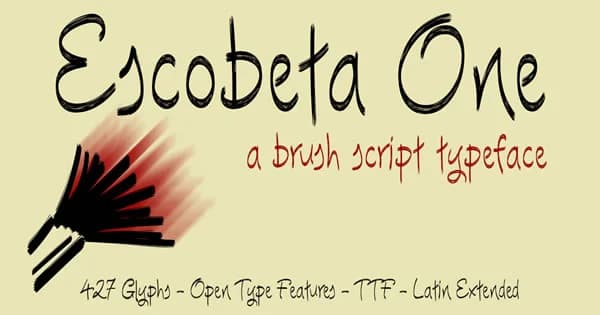
Escobeta One by Fernando Haro is a flowing handwritten script with the loose, natural quality of authentic pen strokes on paper. Its organic letterforms and fluid line work convey genuine personality while remaining legible at any scale, making it an excellent choice for designers seeking authentic character and warmth in their work.
This script thrives in applications where personality and human touch matter most. Designers craft elegant wedding invitation suites using its romantic sensibility, while boutique cosmetics and independent skincare brands rely on it for sophisticated packaging design. Etsy sellers feature it prominently in product label designs and storefront graphics, and hand-lettering enthusiasts favor it for personalized gift labels, custom art prints, and mixed-media compositions. Social media creators find it particularly effective for Instagram story text overlays and branded graphics that command attention in busy feeds.
Escobeta One Font is a script font that shines as a display or heading face. Pair it with a clean sans-serif or serif font for body text β the contrast creates a clear hierarchy while the two styles stay balanced and easy to read.